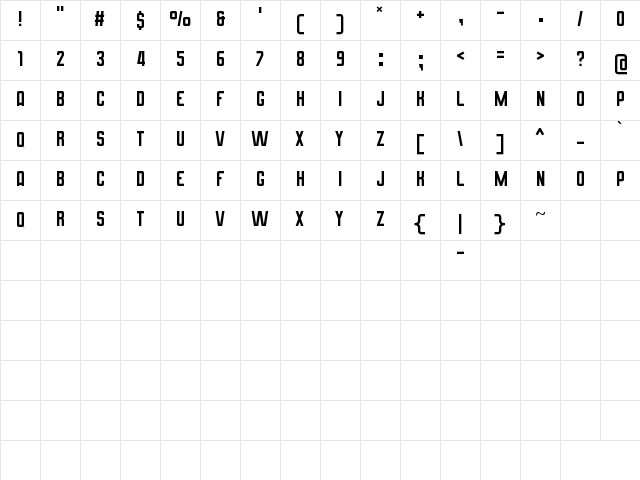
California Signature Duo Regular
| Foundry | Staircase Studio |
| Designer | Staircase Studio |
Design Context for California Signature Duo Typeface
California Signature Duo offers clean, dependable letterforms without strong stylistic allegiance, making it a practical choice for designers who need flexibility.
Pro Tip: Use California Signature Duo in both headline and body roles to test its range before committing to a single application.